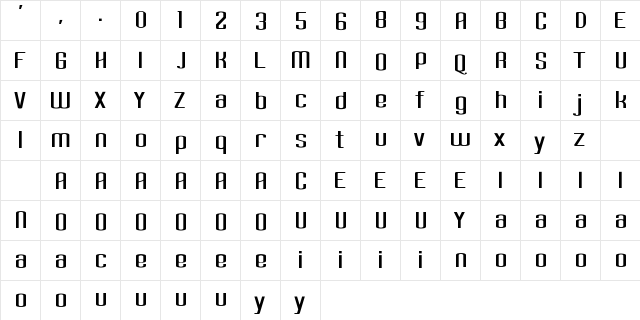
Belgia Demo Regular
| Foundry | Han's Co. |
| Designer | Burhan Afif |
Design Context for Belgia Demo Typeface
Belgia Demo offers clean, dependable letterforms without strong stylistic allegiance, making it a practical choice for designers who need flexibility.